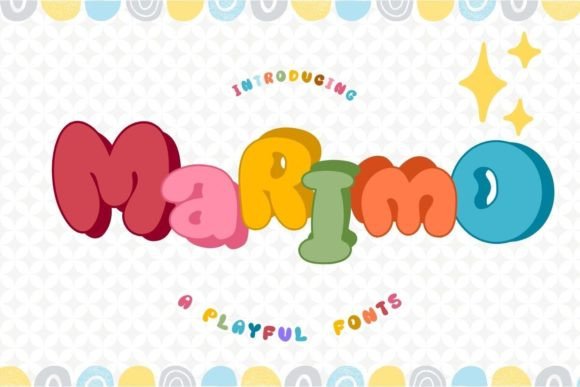
Behold Marimo, the display font that oozes charm and exudes a groovy, playful spirit. This enchanting font is a creation of TONGMON DRAW, meticulously crafted to bring life to your designs with its captivating curves and cheerful aura.
Marimo is tailor-made for those seeking a touch of lightheartedness in their designs. Its playful personality shines through in angel-themed creations, lending an ethereal charm to invitations and other angelic designs. Unleash your creativity and design kids' designs that burst with color and energy, capturing the essence of childhood wonder. Birthday invitations crafted with Marimo become whimsical expressions of joy, ensuring cherished memories for years to come.
Step into the realm of summer designs, where Marimo's sunny disposition takes center stage. Create designs that radiate warmth and happiness, evoking the carefree spirit of the season. T-shirt designs adorned with Marimo's playful characters will turn heads and spark conversations, making a bold statement wherever you go.
Explore the world of crafting and let Marimo guide your creative journey. Its whimsical nature adds a touch of magic to stickers, transforming them into enchanting works of art. Sublimation projects infused with Marimo's charm will leave a lasting impression, bringing a smile to everyone who encounters them.
And that's just the beginning. Marimo's versatility extends to logos, branding, posters, and social media posts, offering endless possibilities for creative expression. Its groovy vibe injects a dose of fun and excitement into any project, making it an indispensable tool for designers seeking to make a lasting impact.